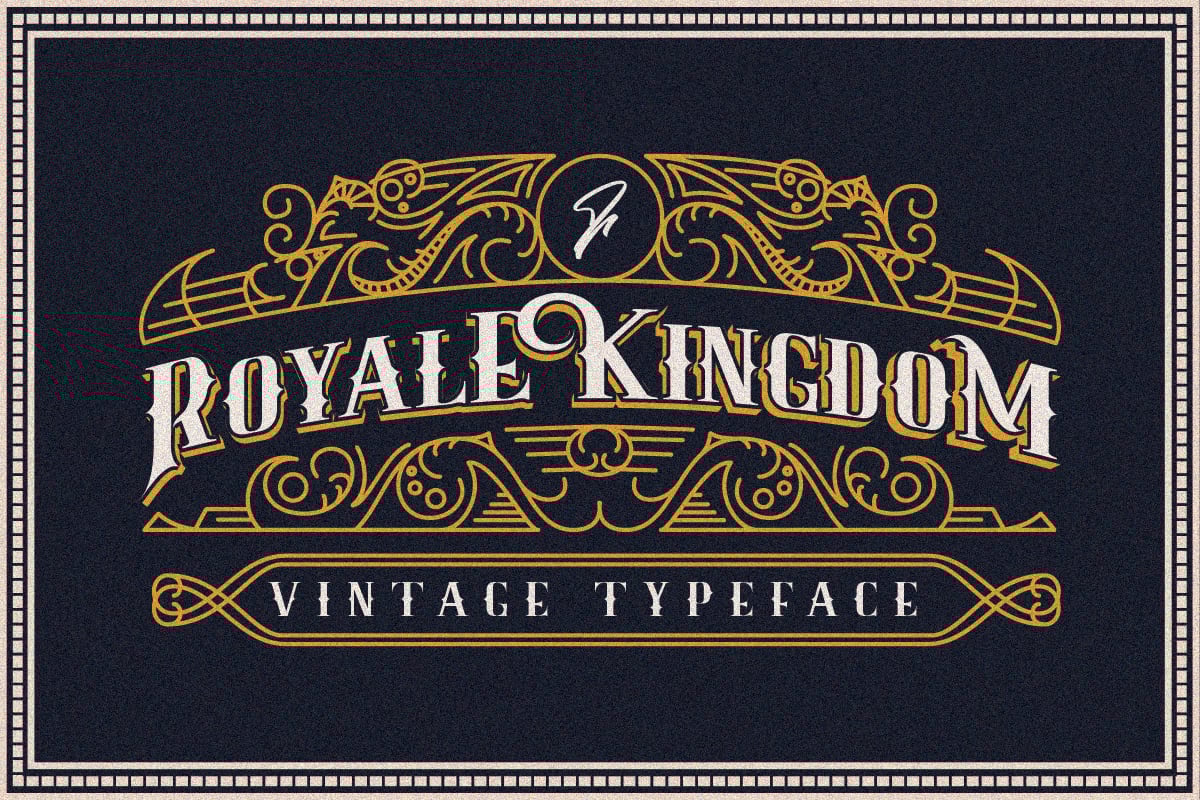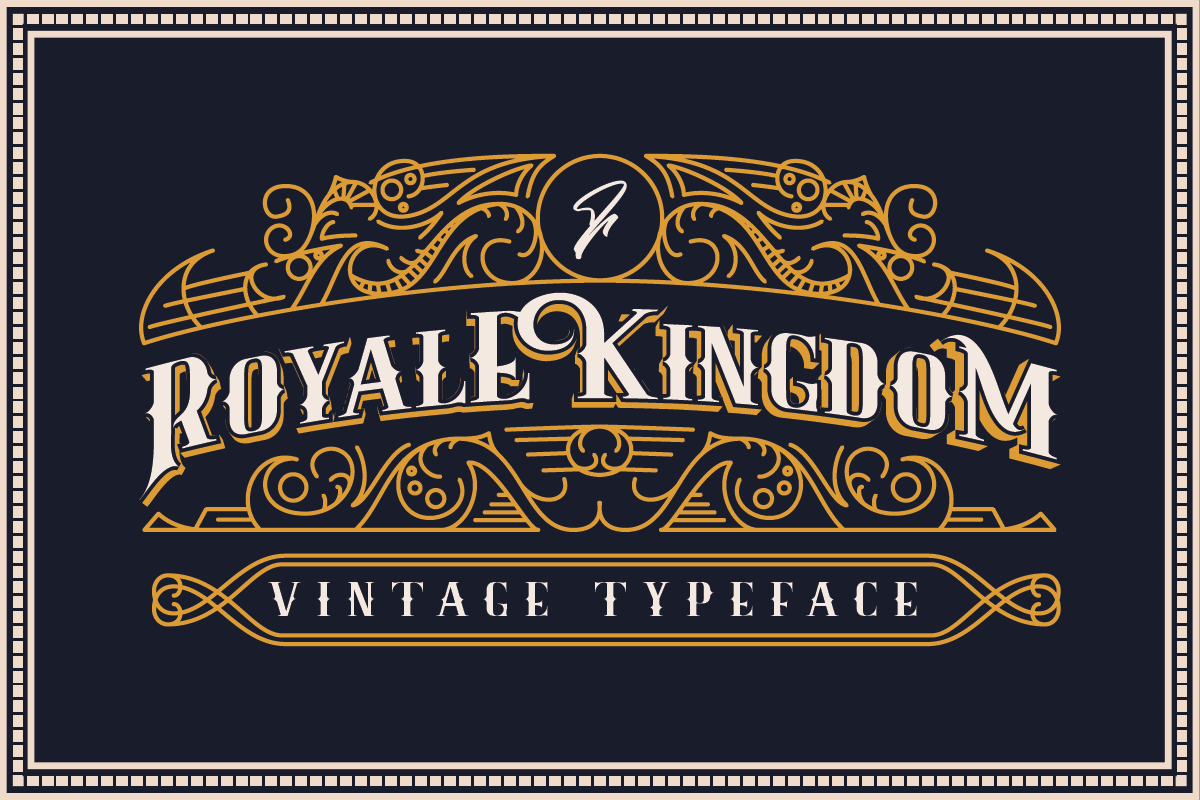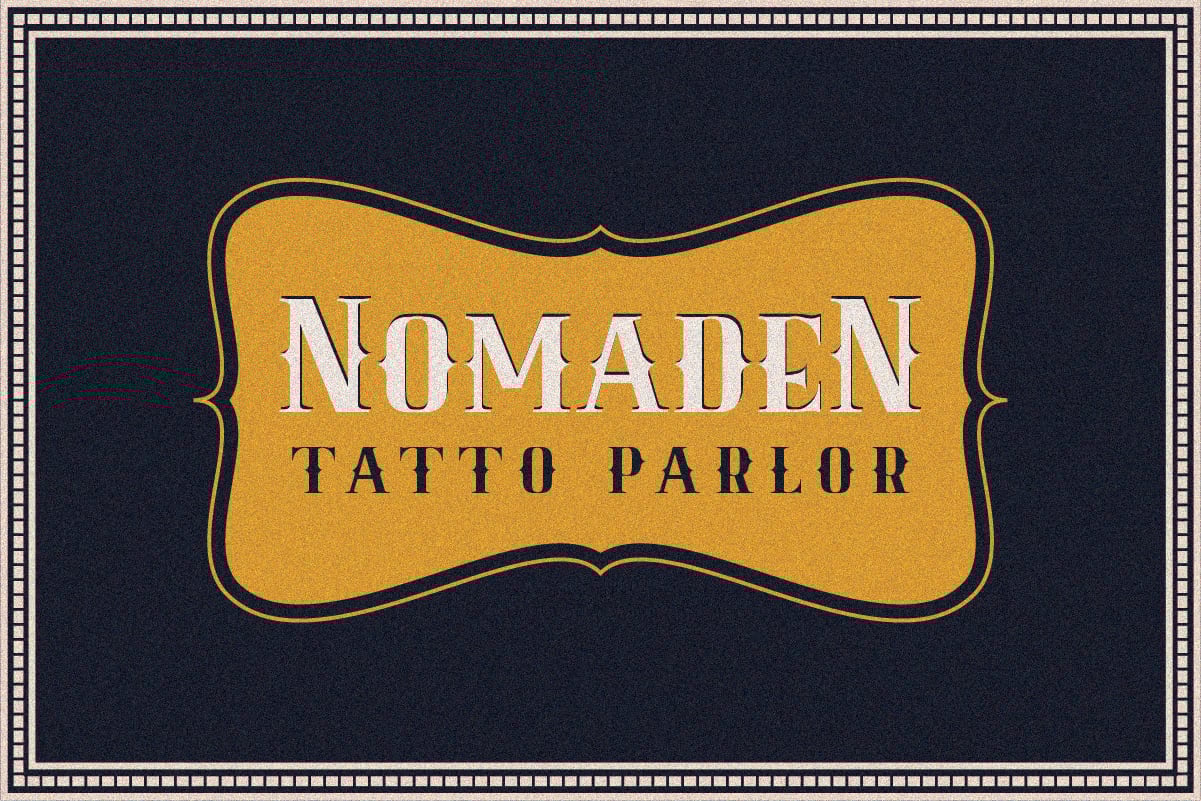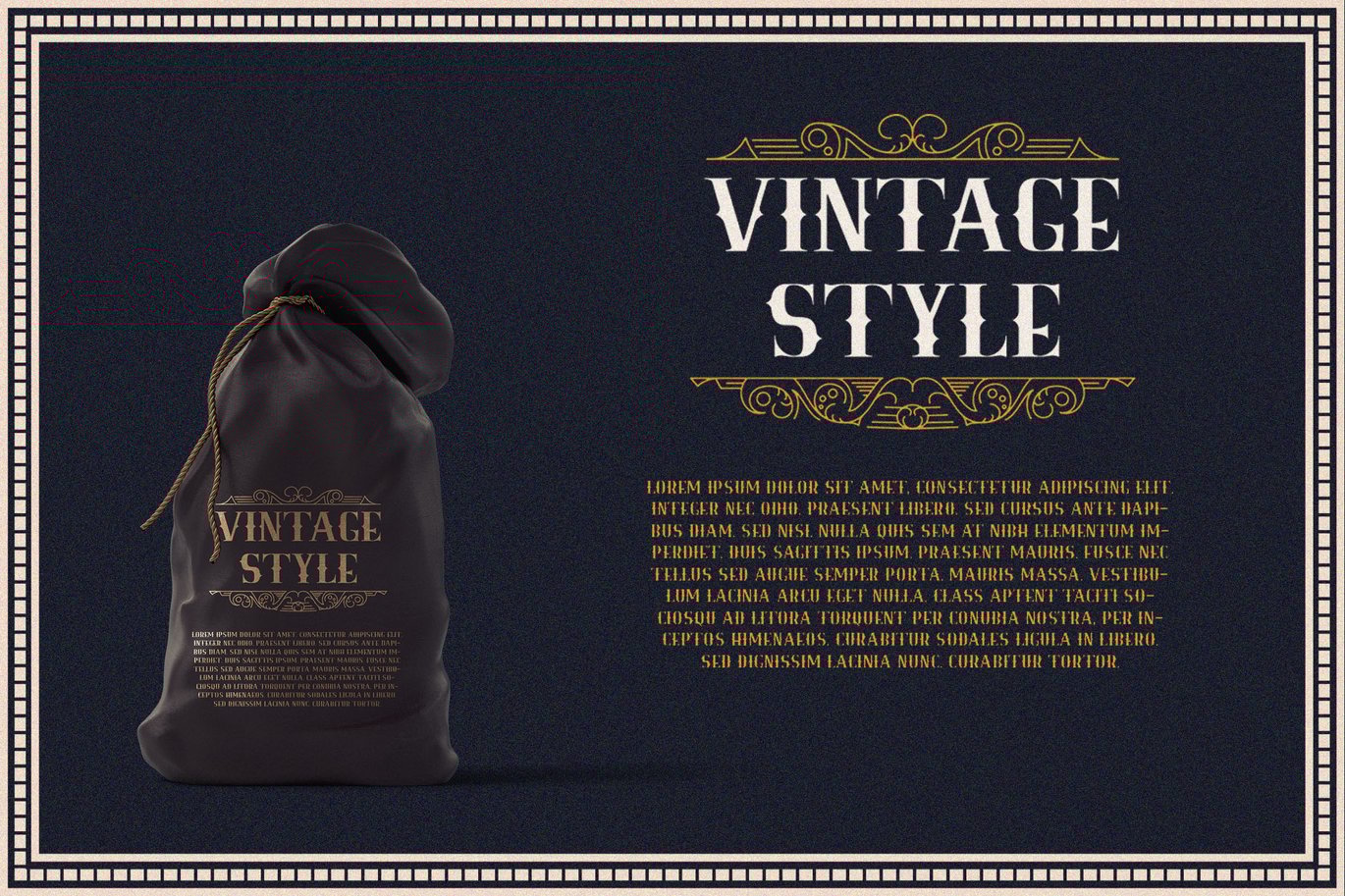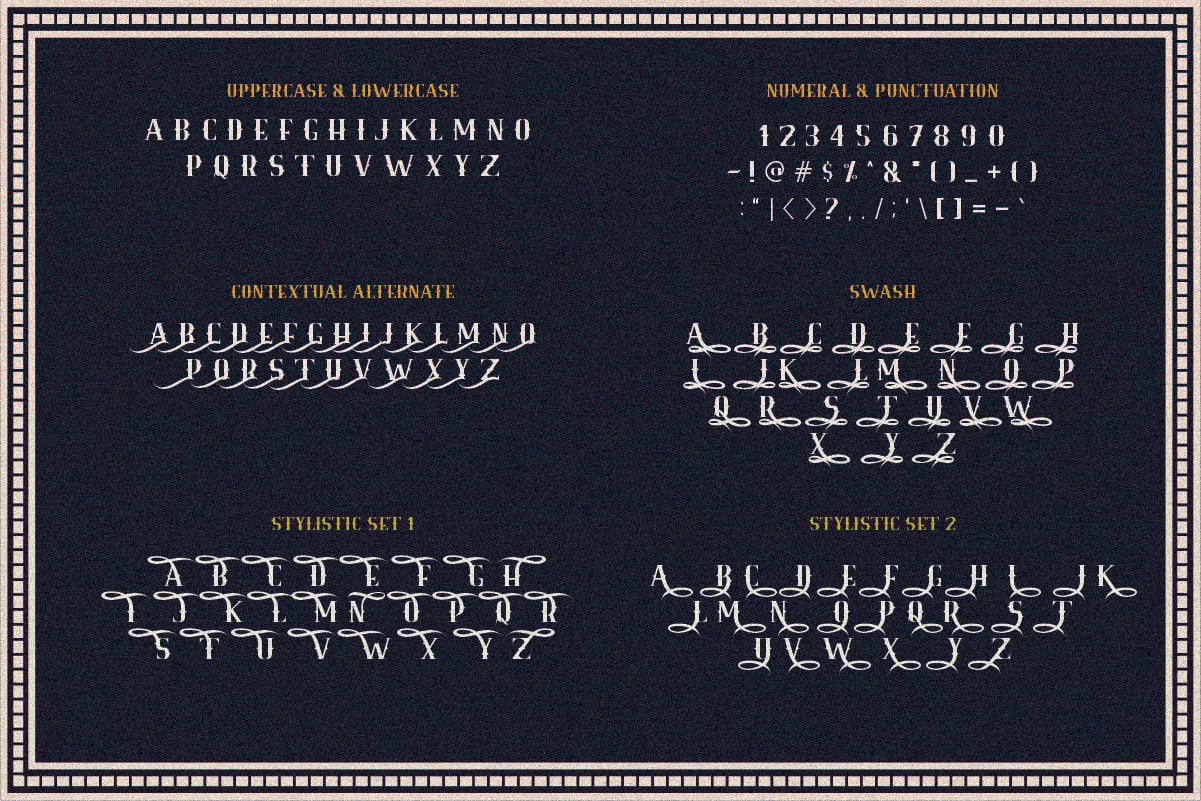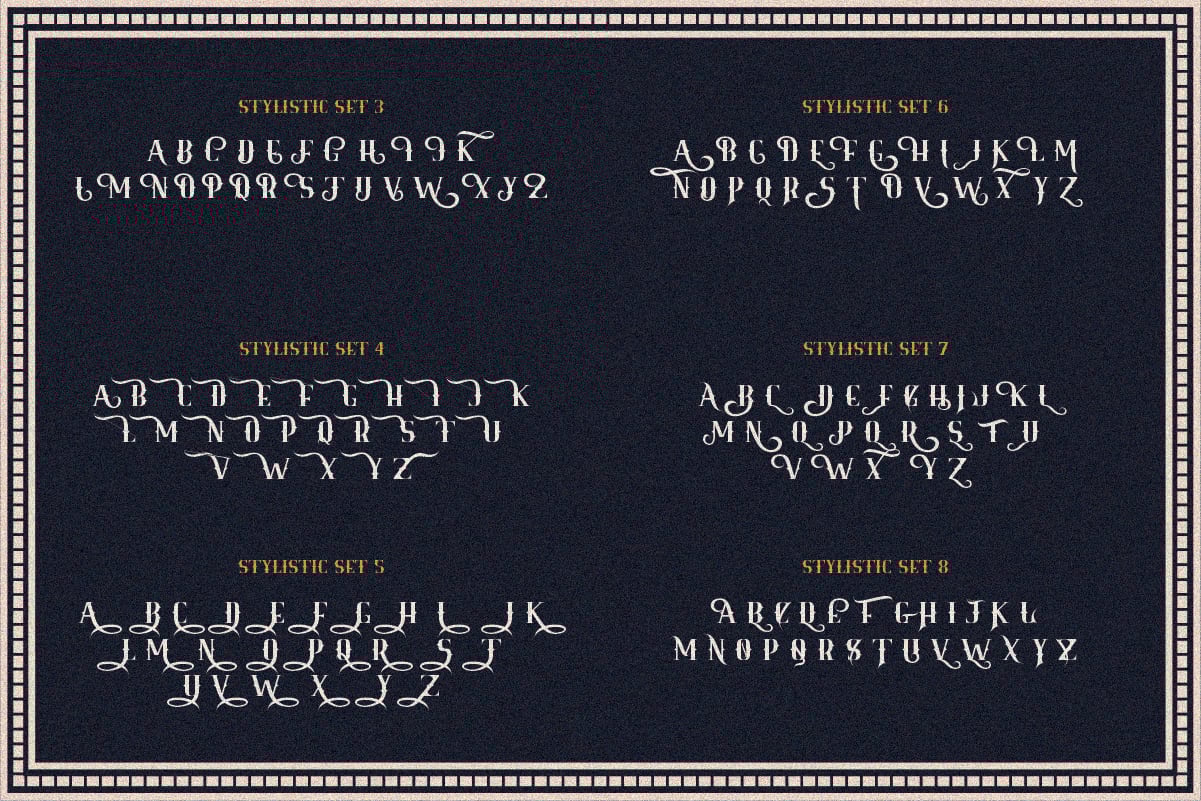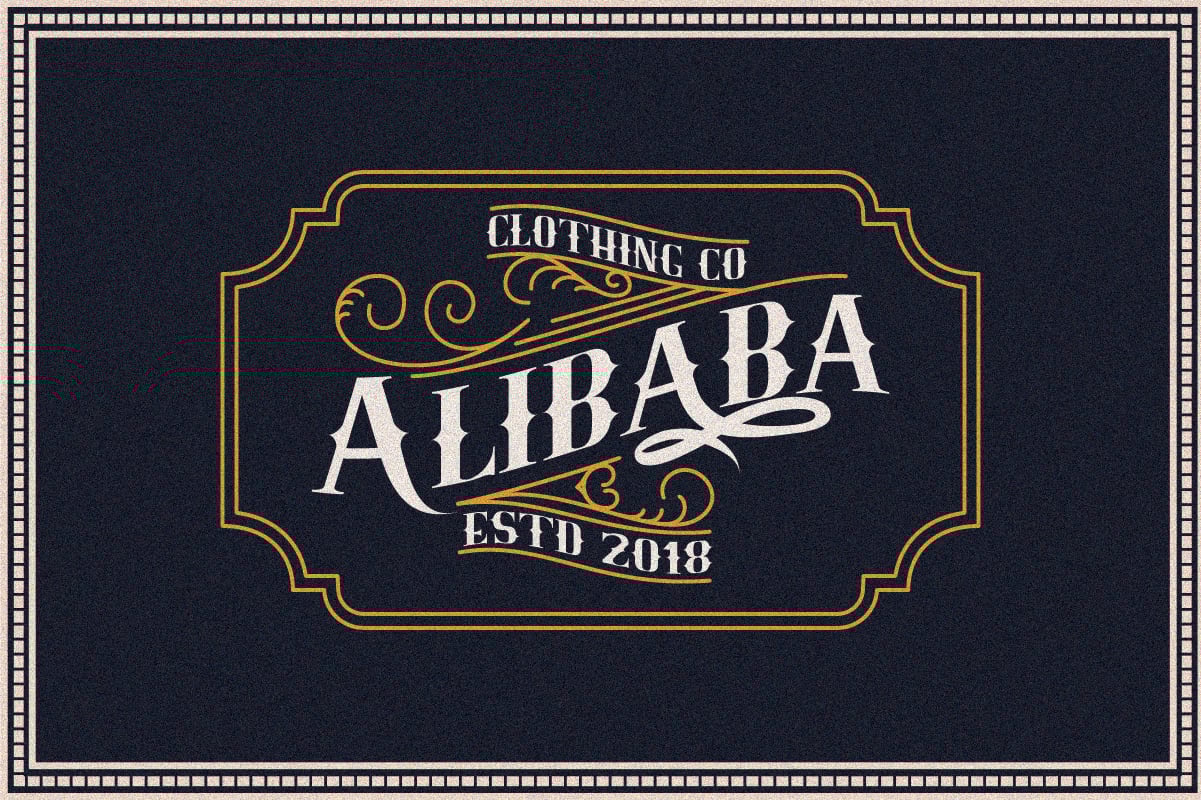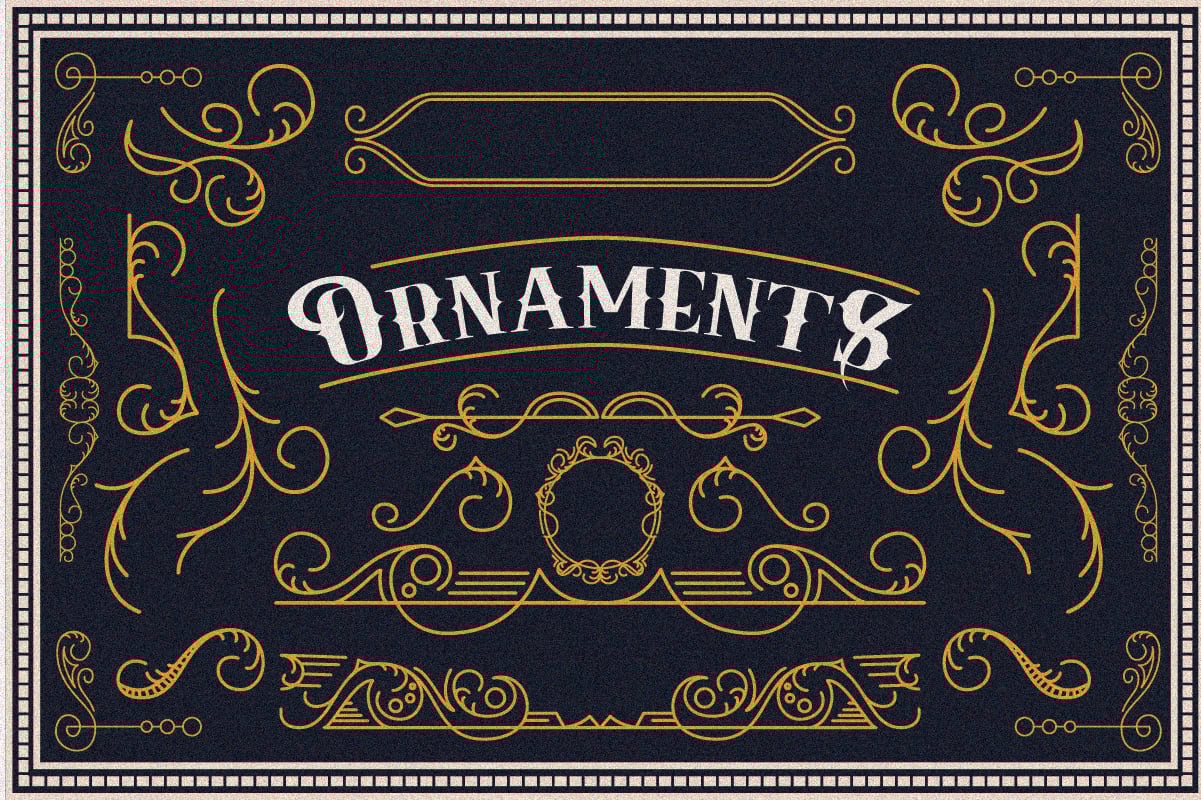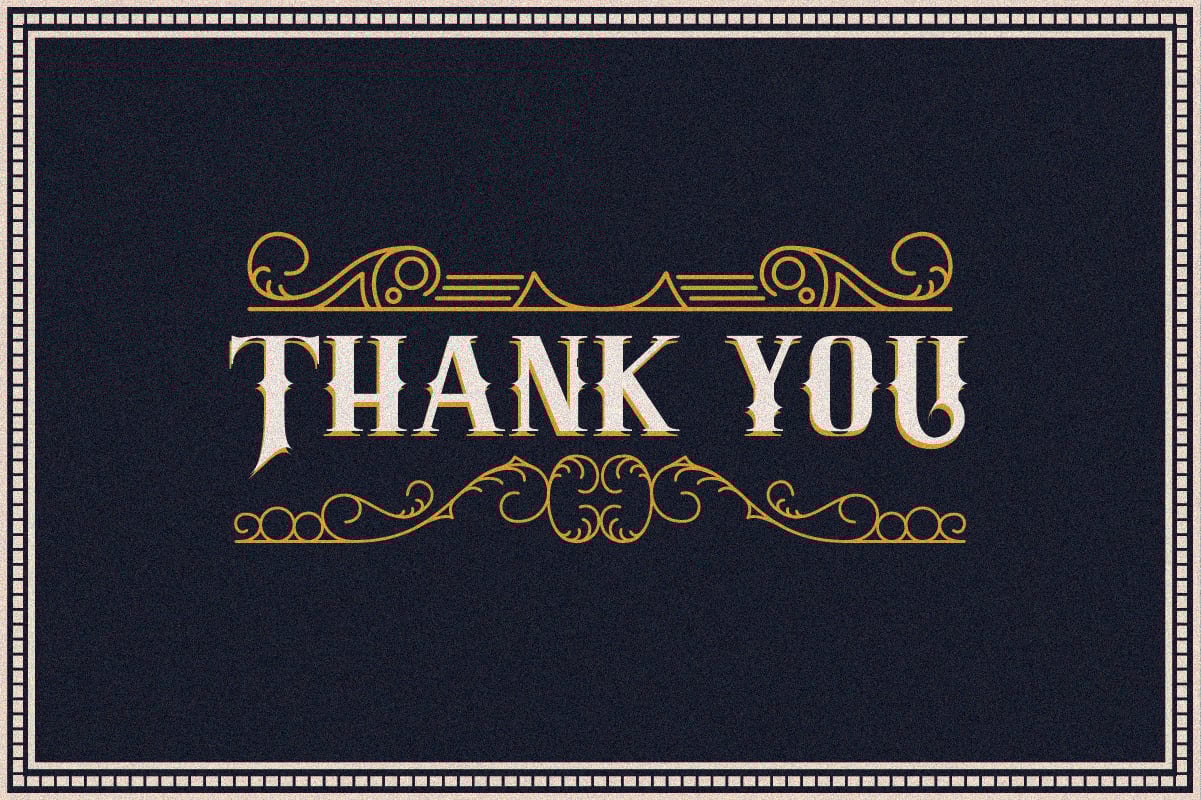
Royale Kingdom – Vintage Serif Font
Introducing, Royale Kingdom a Vintage Style Typeface. this oldschool font is awsome for various design. made with some flourish ornament make your design look so vintage. even this vintage style but suitable for varous project like Logotype, Branding, Stationarry, T-Shirt Design, Card and many more.
Royale Kingdom Features:
- More Than 700+ Glyphs
- 8 Stylistic Set Glyphs
- Swash
- Contextual Alternate
- Bonus Ornaments